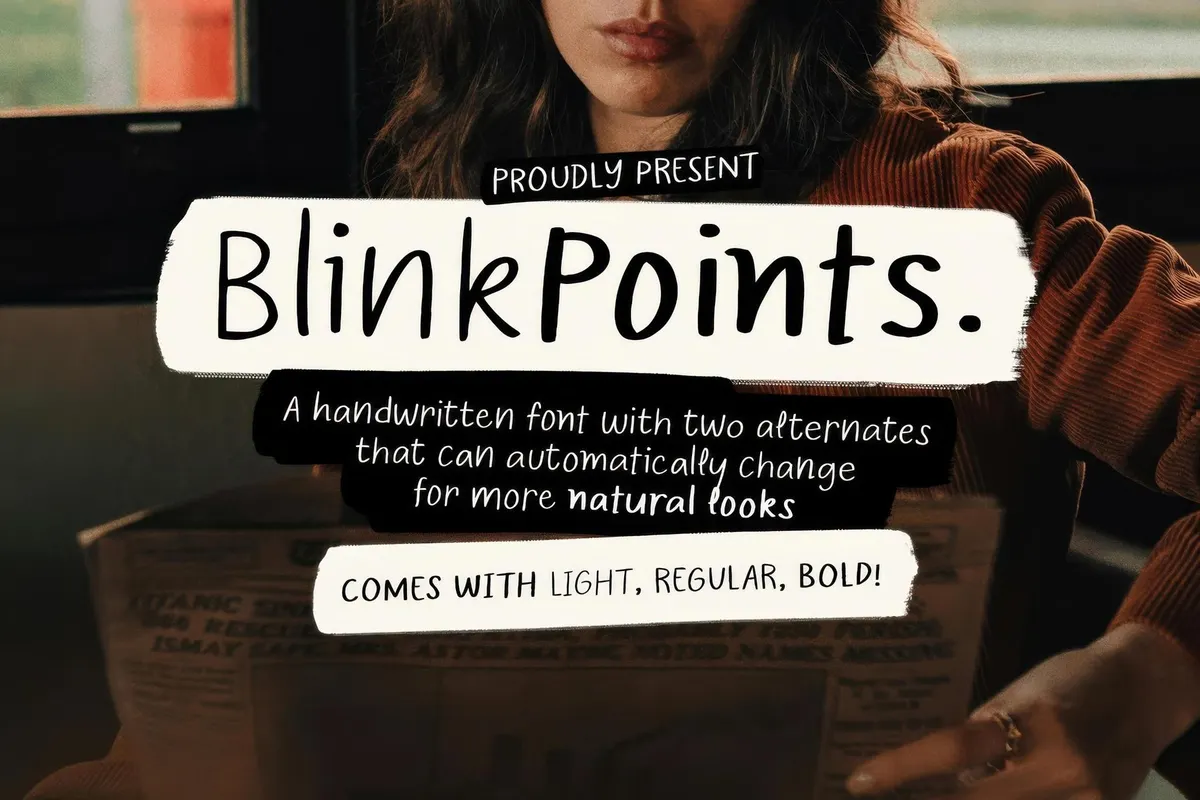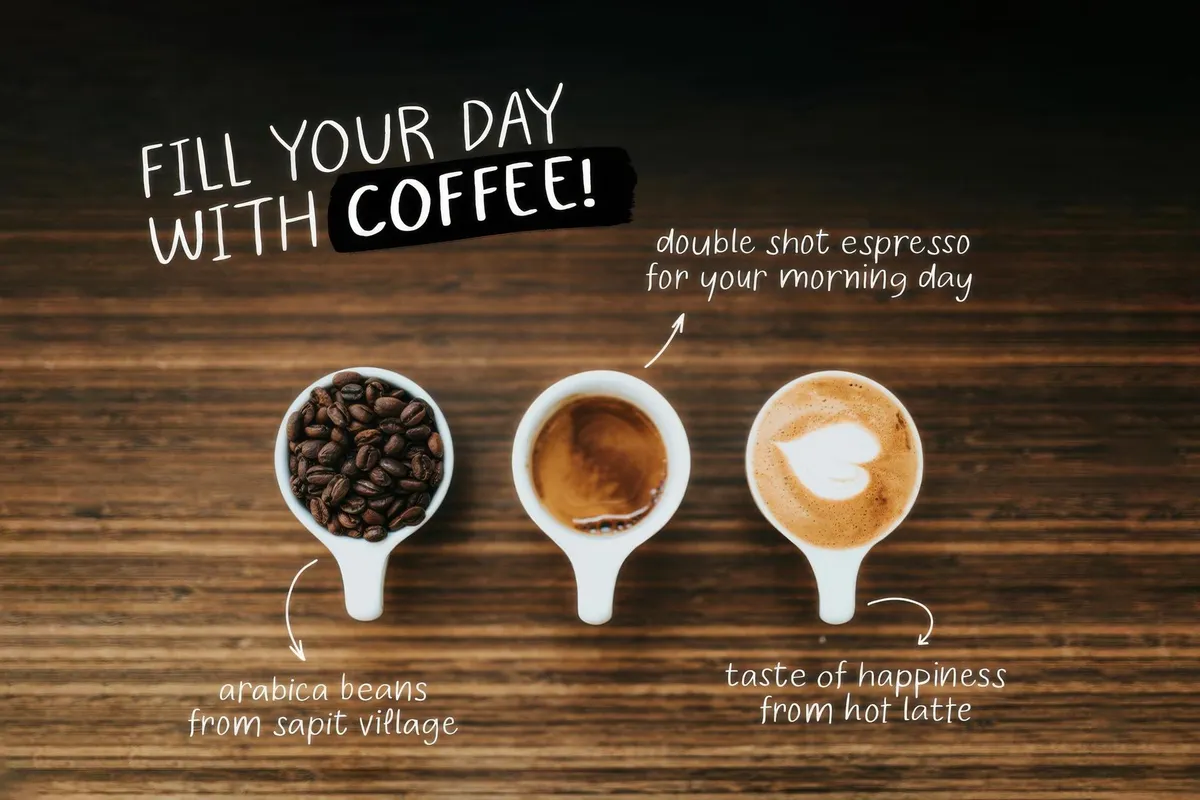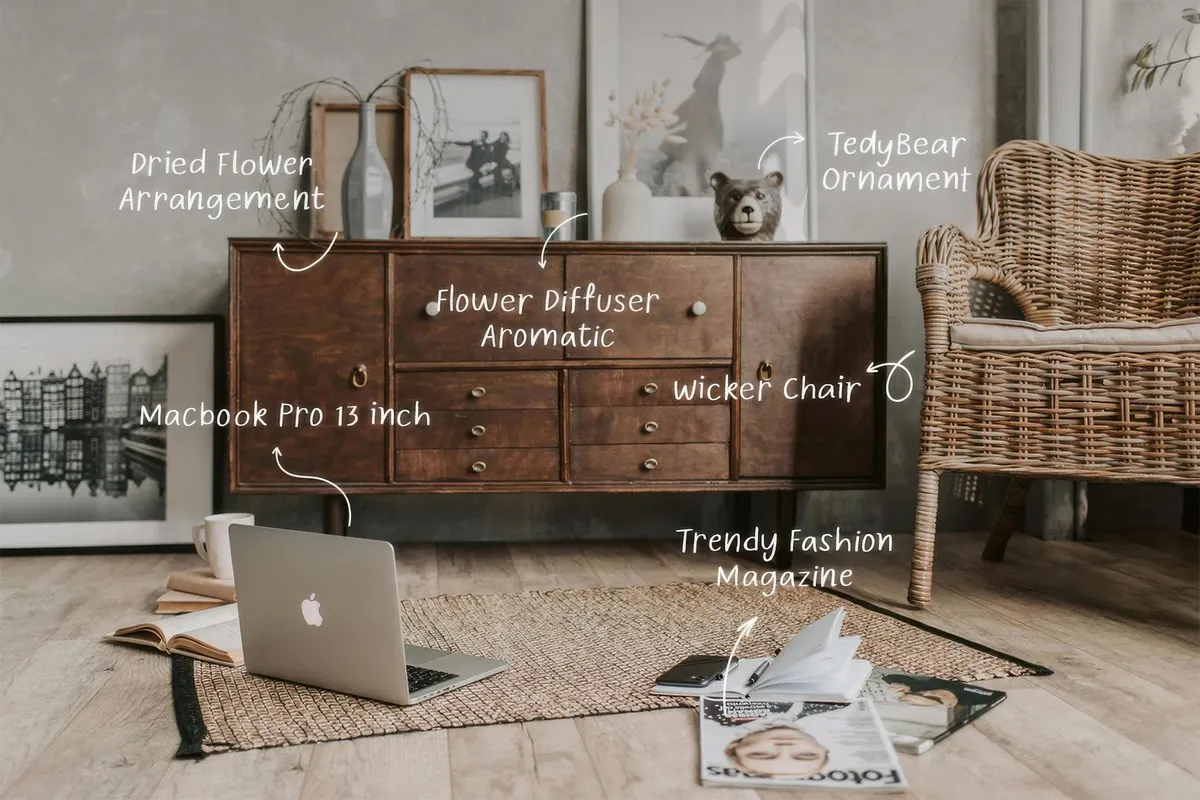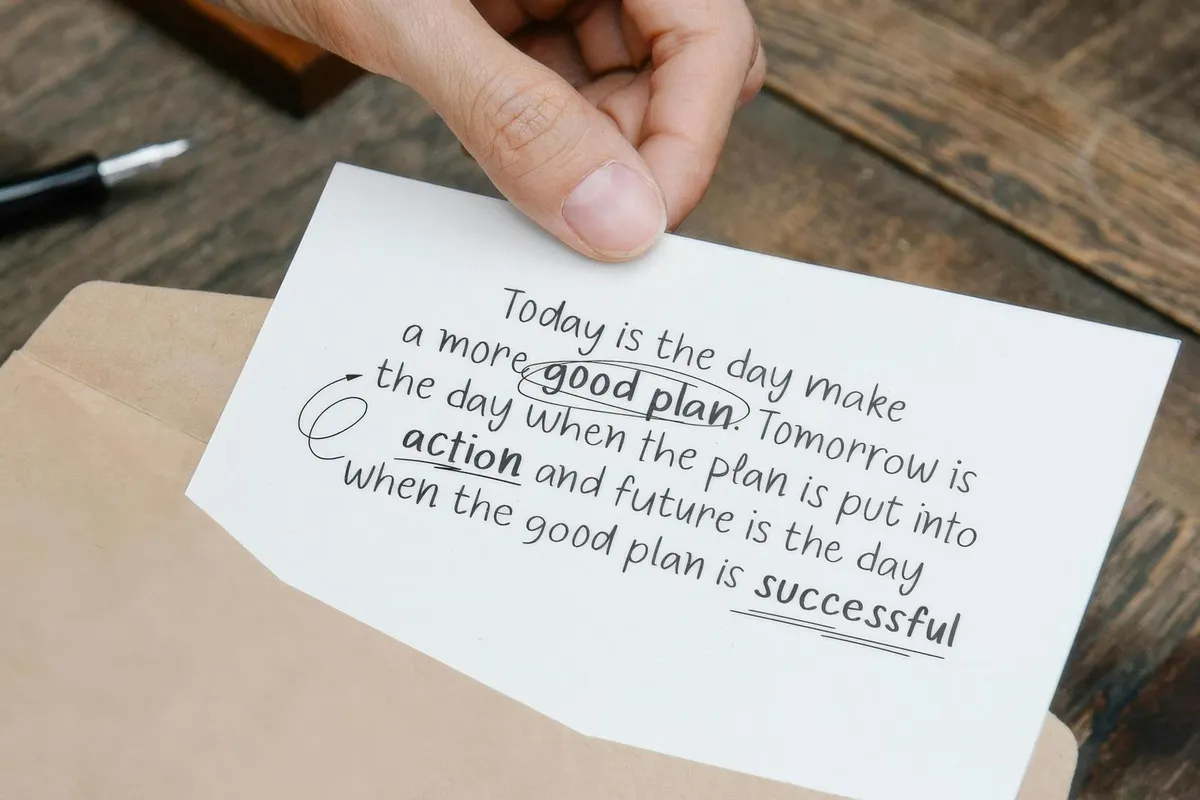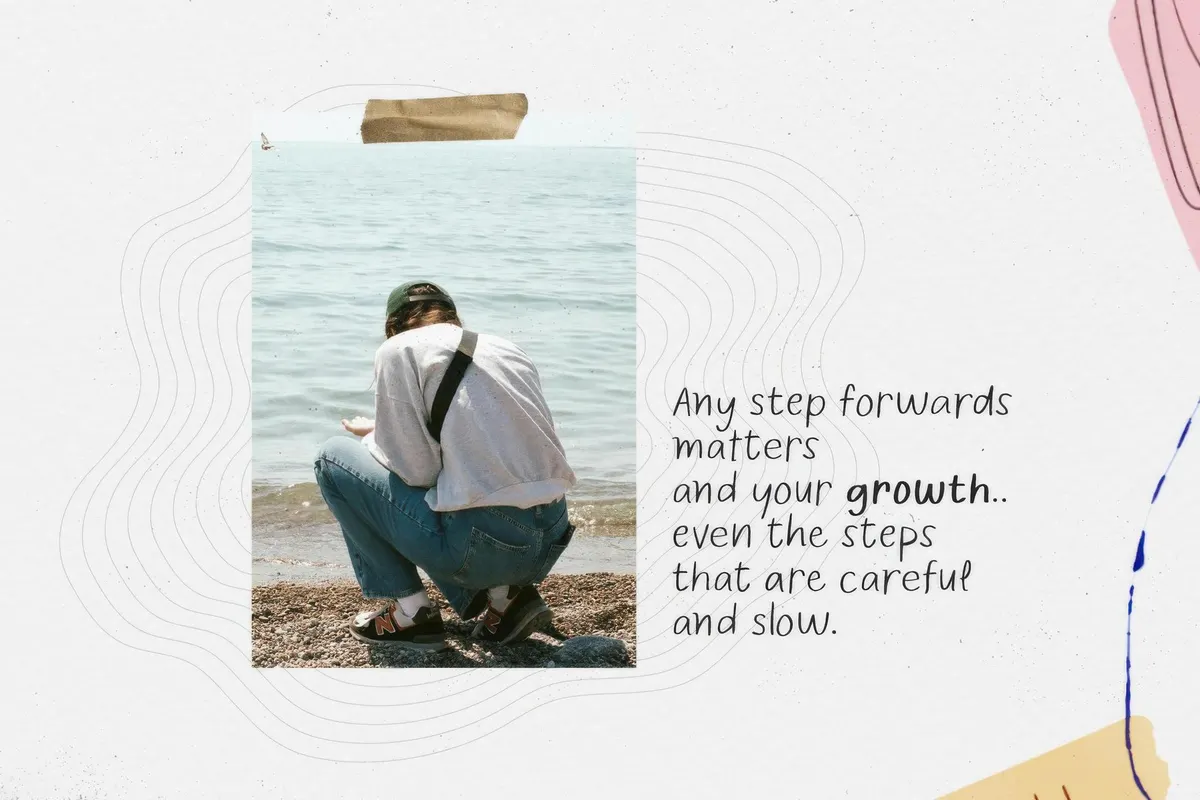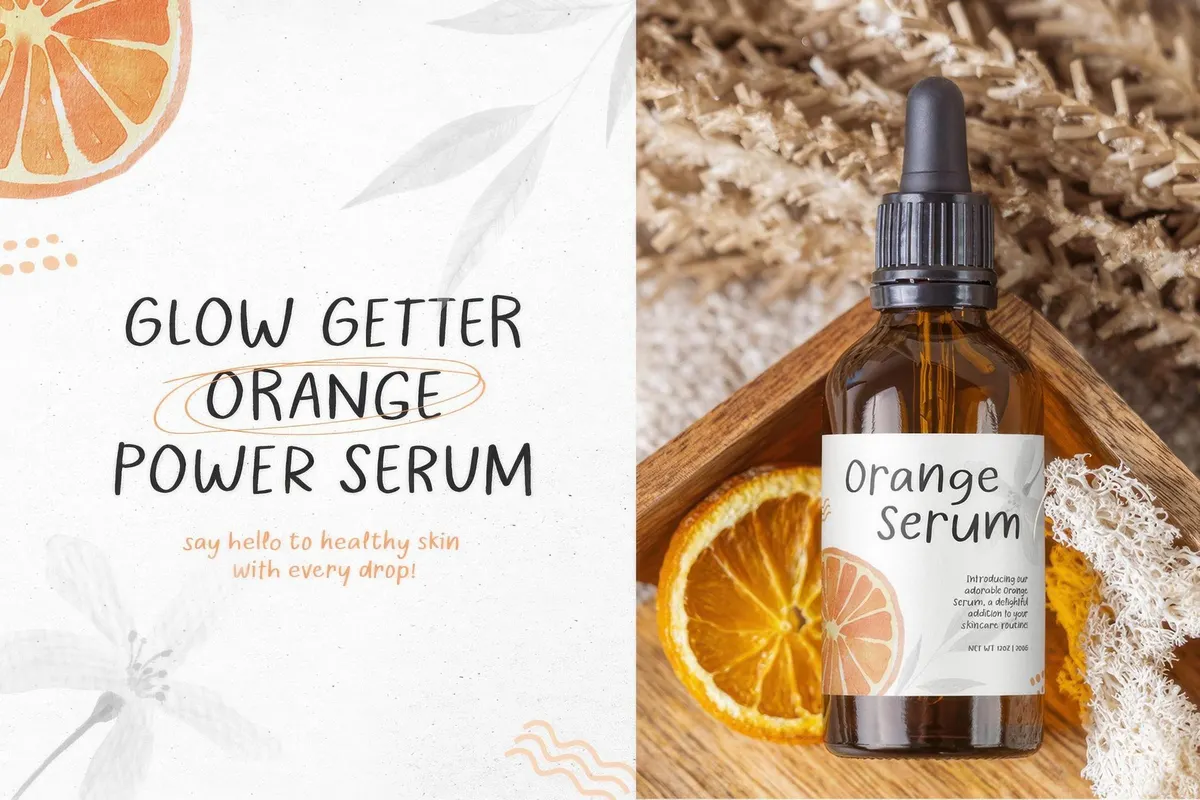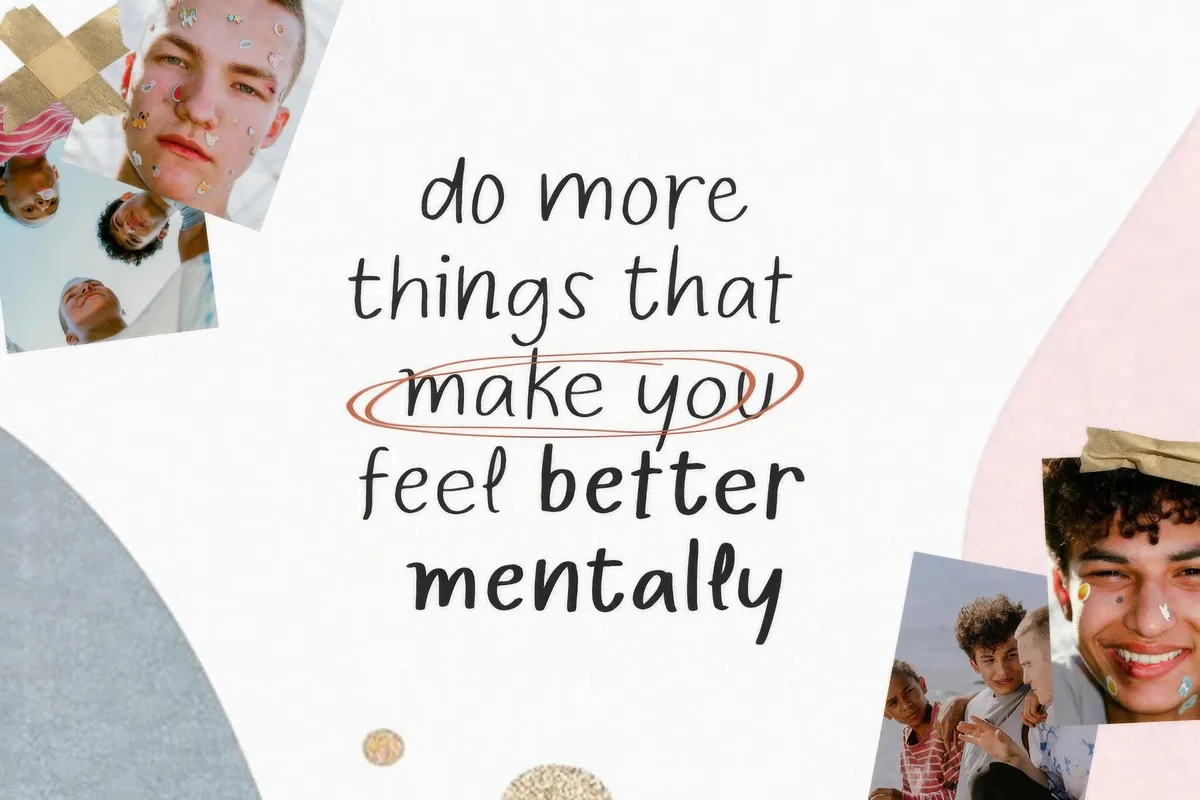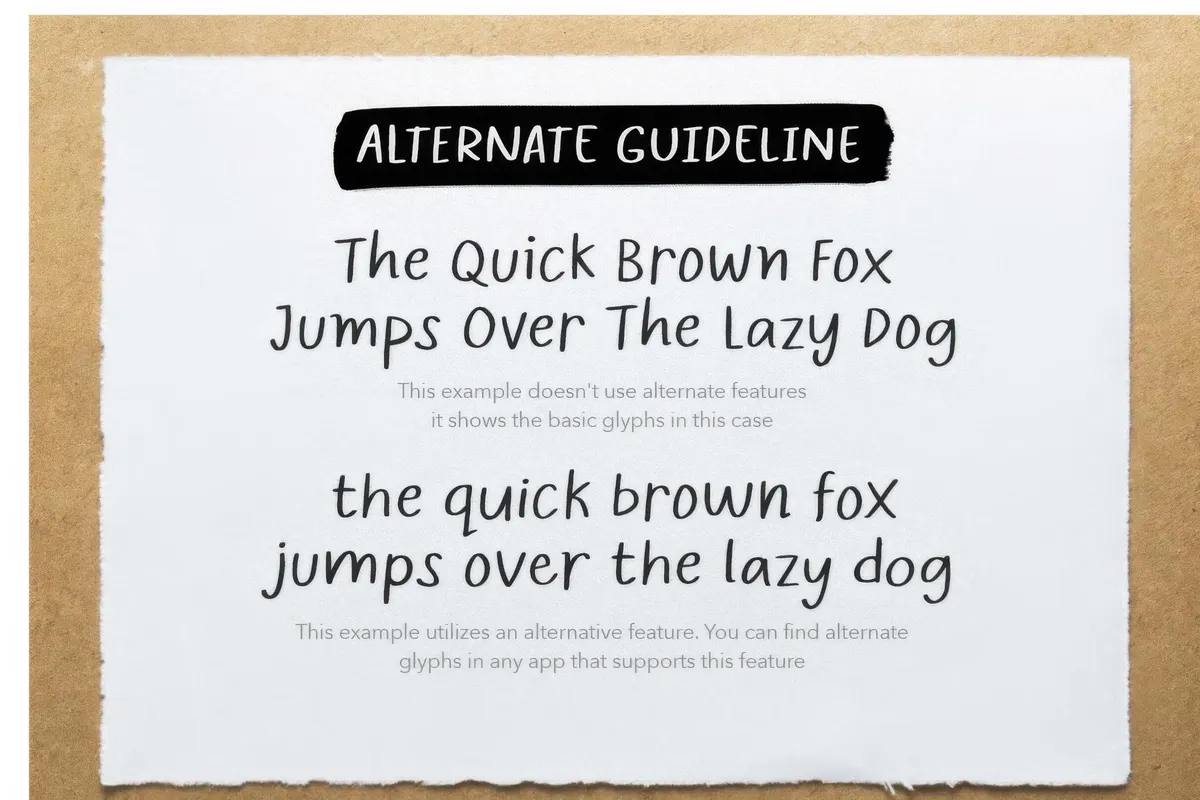
Blink Points — Quote Font Family
When was the last time you actually wrote something by hand? Remember the character and personal touch that came with every stroke? Blink Points brings that nostalgic feeling back in a typeface that feels like a scrawl of a journal entry.
This handwritten font family includes Light, Regular, and Bold styles — each one loaded with alternating characters that change automatically. Thanks to Contextual Alternates feature, your designs stay fluid, fresh, and just a little unpredictable, just like handwriting itself. The set of glyphs includes upper and lower case characters, numerals, and punctuation . Perfect for heartfelt quotes, journal-inspired projects, or branding that needs a personal touch, Blink Points keeps it real with every line, curve, and connection.